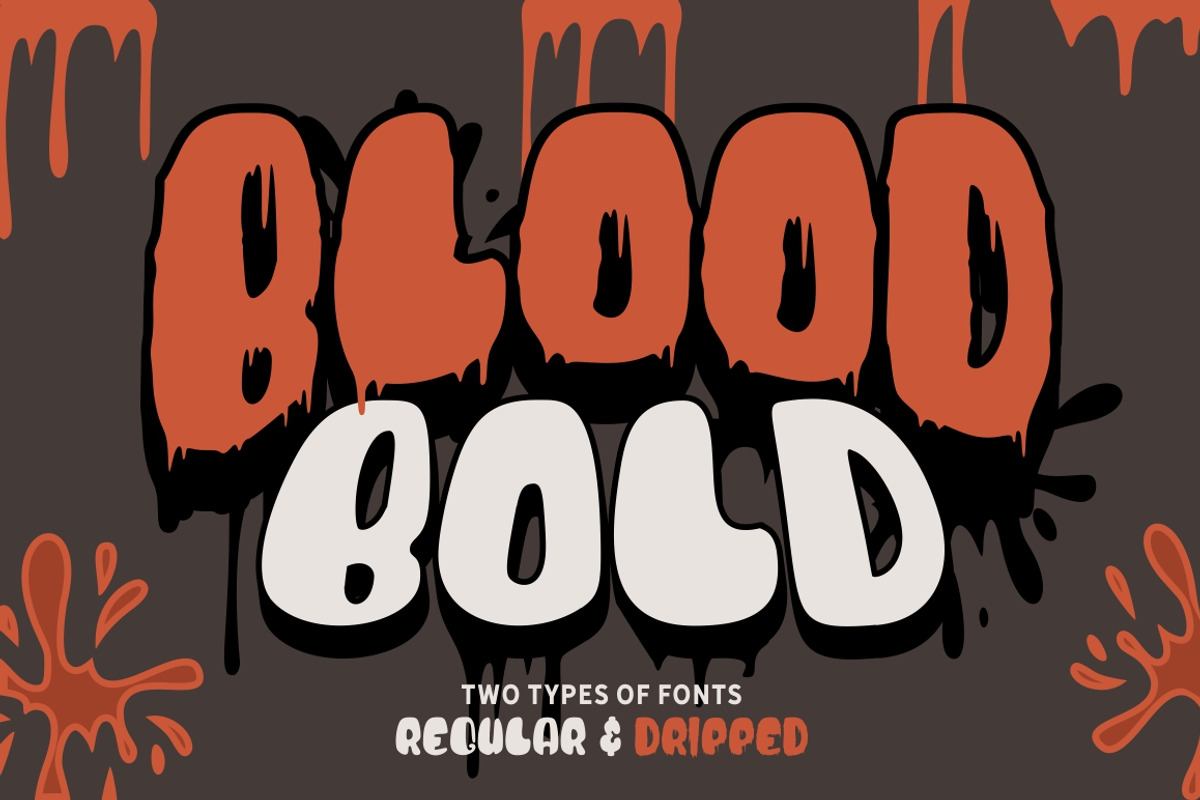
Blood Bold - Fun Halloween Two Fonts Free Download
The Blood Bold - Fun Halloween Two Fonts Free Download is a spooky and exciting font pair perfect for your Halloween-themed designs. Featuring bold and dramatic letterforms with a touch of horror, this font duo is ideal for creating eerie posters, invitations, and party materials. Whether you're designing for a Halloween event, a haunted house, or a spooky brand, this font set will add the perfect amount of frightful fun.
Blood Bold - Fun Halloween Two Fonts Free Download offers a unique blend of horror and playfulness. With two distinct styles, it gives you the flexibility to create designs that range from eerie to fun and festive. Download this bold, Halloween-inspired font duo today and bring your spooky creations to life!